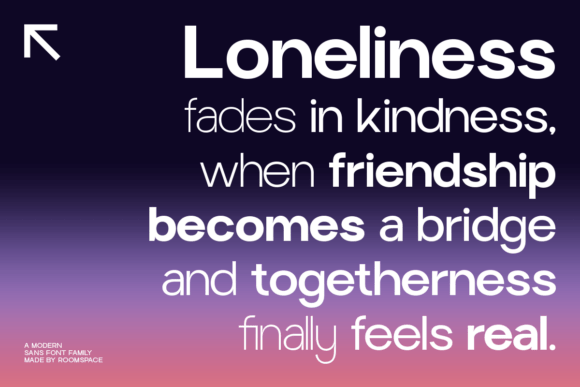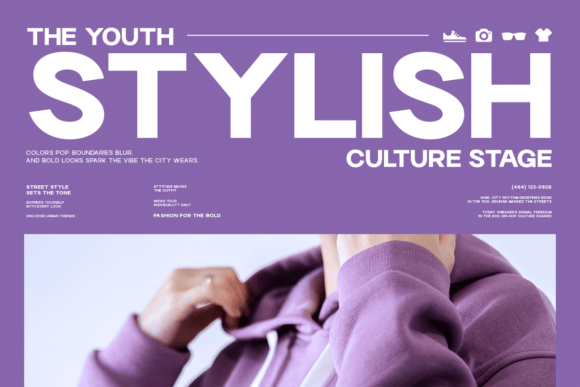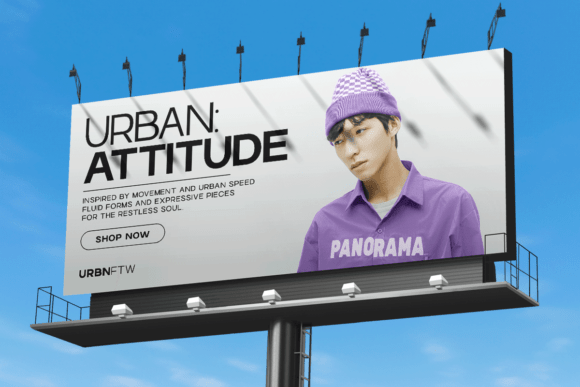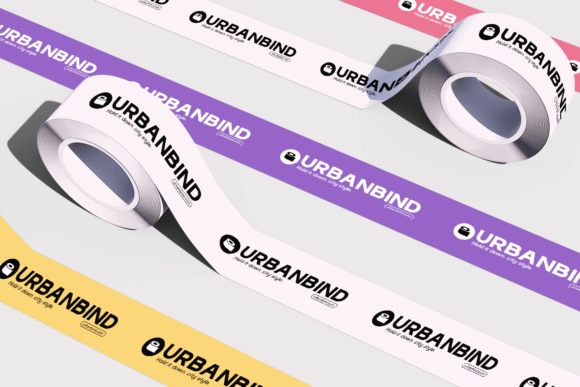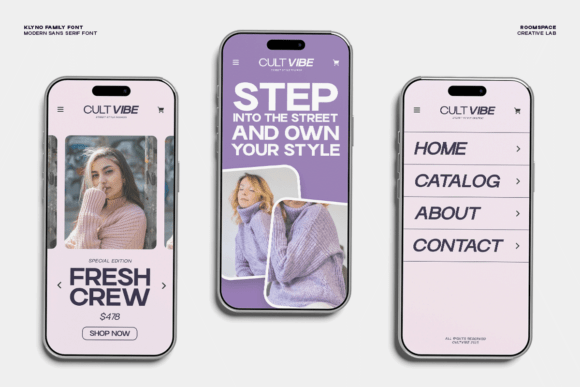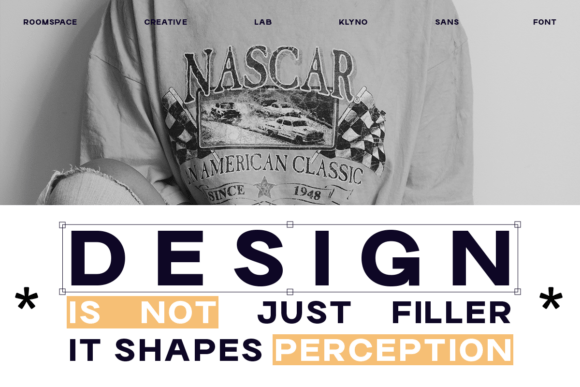
Introduction to Klyno Font
Klyno is a modern geometric sans font family built for clarity, structure, and strong visual identity.
Featuring 8 weights from Thin to Extra Bold, Klyno delivers a perfect balance of minimal aesthetics and powerful readability Its clean geometry makes it ideal for branding systems, editorial layouts, UI/UX interfaces, and high-impact digital content.